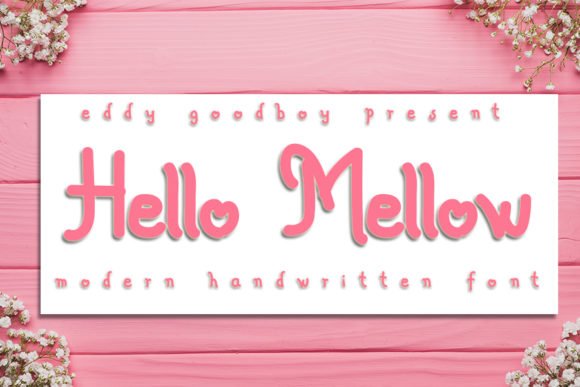
Discover the Magic of Handwritten Charm
Remember that moment when you were brainstorming a creative project, and the perfect font just slipped your mind? You’ve got your colors, your composition, and your message, but the right typography is what brings it all together. For many designers, that perfect font is the difference between a good design and a great one.
Enter Hello Mellow Font, a delightful and whimsical handwritten font that’s perfect for adding a touch of personality to your work. Whether you’re crafting a greeting card, designing a presentation, or working on a digital project, Hello Mellow Font is sure to bring a smile to your face and a unique charm to your design. Its sweet and playful style makes it a valuable addition to any designer’s toolkit.
Hello Mellow Font Key Features
- Unique Characteristics: Hello Mellow Font features a unique blend of modern and vintage elements, with subtle texture and organic shapes that give it a distinctive, hand-drawn feel.
- Character Set: The font includes a comprehensive character set, covering Latin, Cyrillic, and Greek alphabets, as well as a range of punctuation and special characters.
- Script and Ligature Support: Hello Mellow Font includes a range of script and ligature styles, allowing for creative and expressive typography.
- Font Weight and Style: The font is available in multiple weights and styles, from light to bold, and includes italic and oblique variants for added flexibility.
Hello Mellow Font Review
Overall, I think Hello Mellow Font is a solid choice for designers looking for a fun and playful font. It has a ✨ unique personality that’s perfect for adding some whimsy to your designs.
- ✨ Unique character set: The font has a distinct character that sets it apart from more generic fonts.
- ✨ Wide language support: Hello Mellow Font supports a wide range of languages, making it a versatile choice for designers.
- ✨ Highly customizable: The font is highly customizable, allowing designers to adjust its appearance to suit their needs.
- ⚠️ Limited legibility: At smaller font sizes, Hello Mellow Font can be difficult to read, which may limit its use in certain applications.
- ⚠️ Not suitable for formal designs: The font’s playful personality may not be suitable for formal designs or applications where a more professional tone is required.
Overall, I think Hello Mellow Font is a great choice for designers who want to add some personality to their designs. While it may have some limitations, its unique character and versatility make it a valuable addition to any designer’s toolkit.
Tips for Getting the Most Out of Hello Mellow Font
For optimal results, use Hello Mellow Font in conjunction with a clean and simple design aesthetic. This font is best suited for headings and titles, as it can add a touch of elegance and sophistication to your design.
Hello Mellow Font is ideal for:
- Editorial and magazine design
- Business cards and brochures